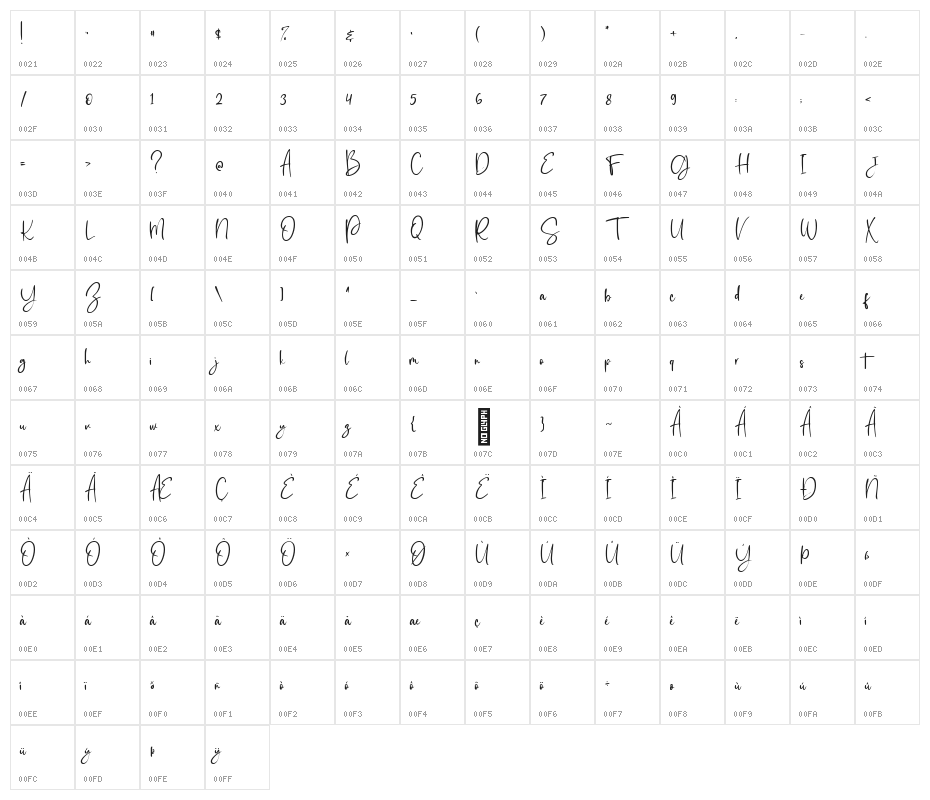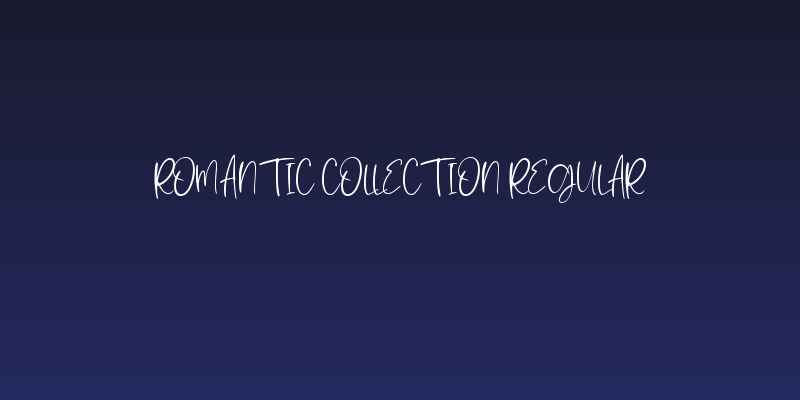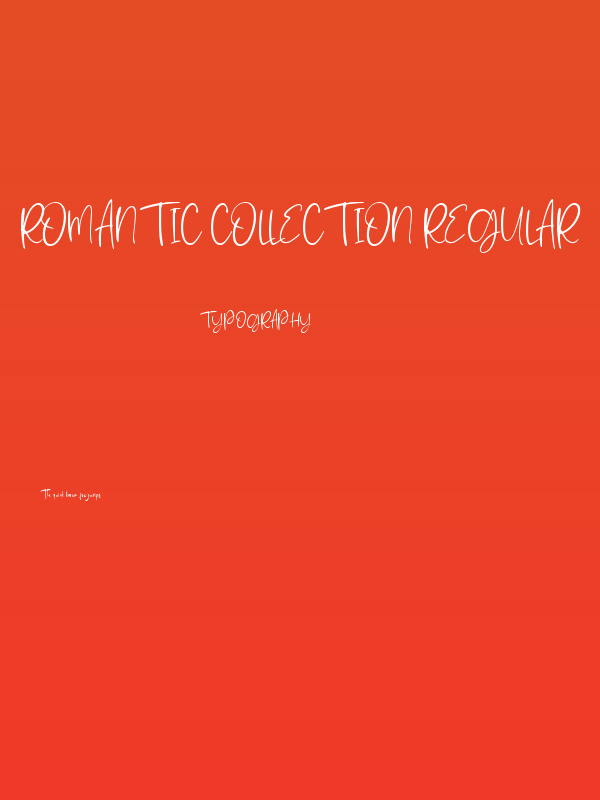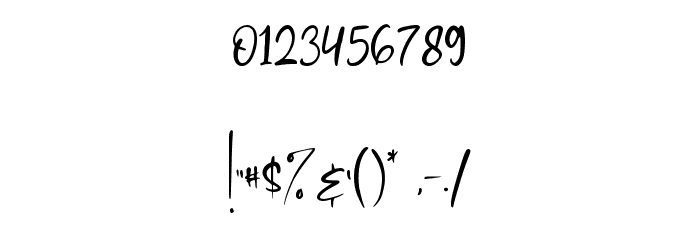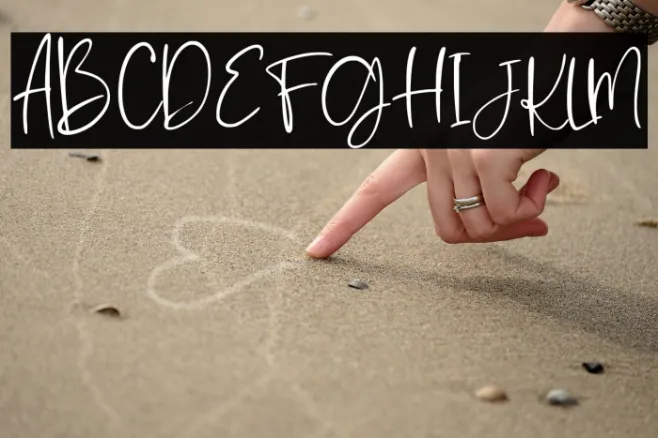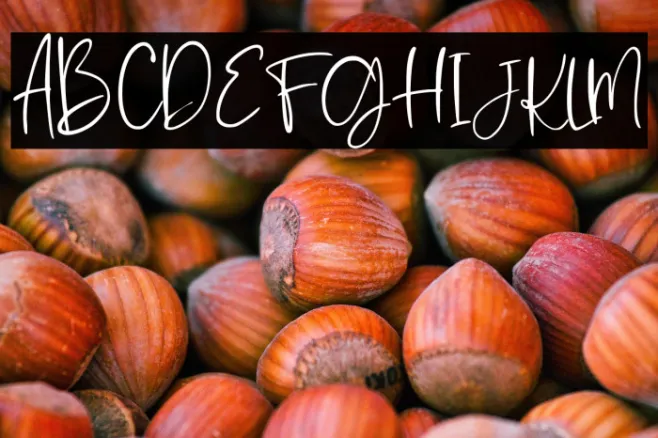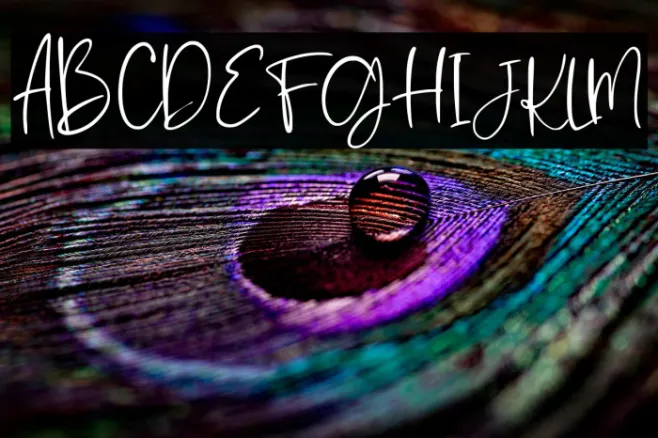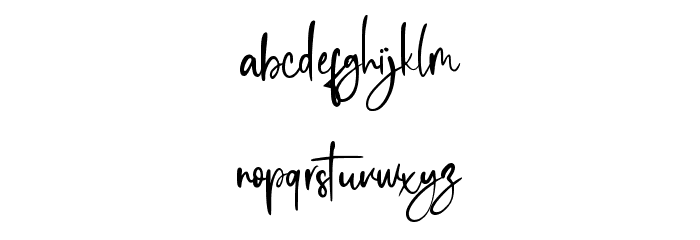
Romantic Collection Regular Font
Romantic Collection Regular Description
This font features a playful and elegant handwritten style, characterized by its flowing and interconnected letterforms. The uppercase letters are tall and slightly narrow, with a whimsical flair that adds a touch of sophistication. The lowercase letters maintain a consistent flow, enhancing the overall cohesive look. Numbers and special characters are designed to match the font's lively and artistic nature, making it suitable for creative projects. The font's unique style is perfect for adding a personal touch to any design.
| Proposed Projects | Ideal for wedding invitations, greeting cards, personal branding, and creative projects requiring a personal touch. |